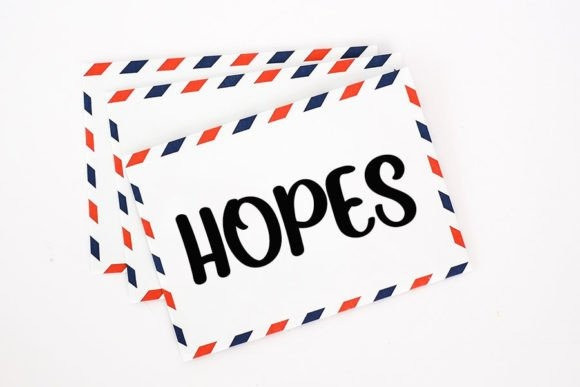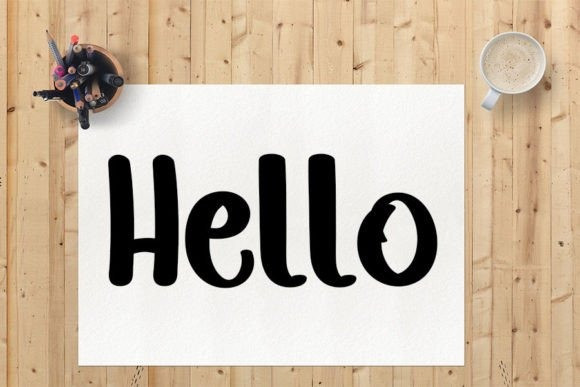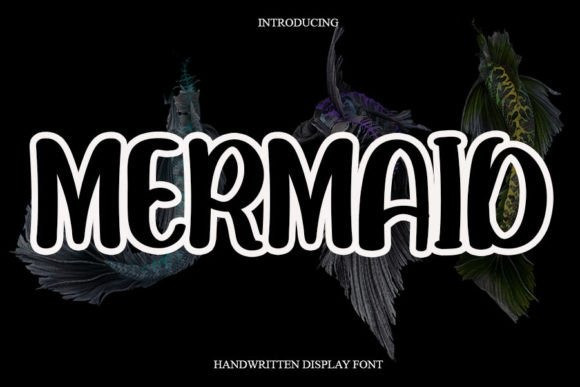
Mermaid Font
Mermaid Font is a magical handwritten font carefully created with a touch of elegance. Clean and a little bit quirky, this font is the perfect fit for all of your logos, branding, social media, and crafty DIY projects.